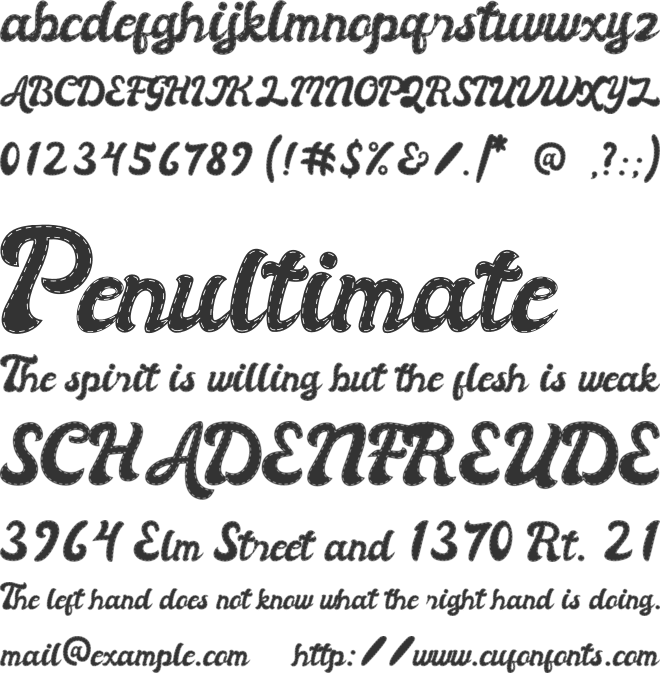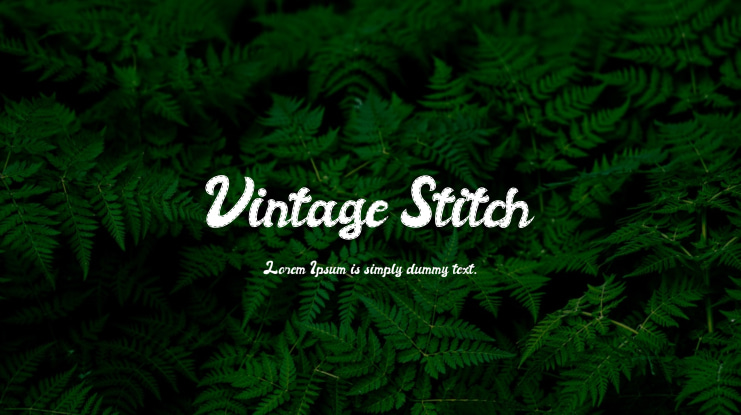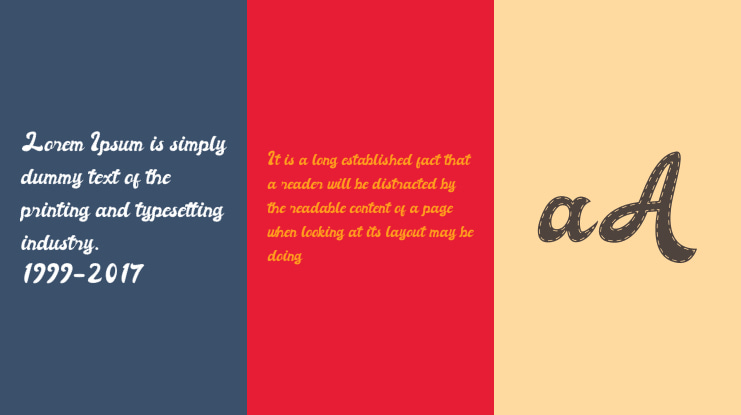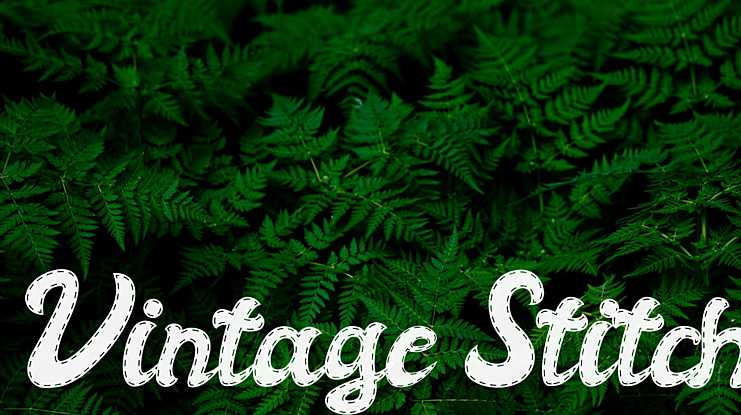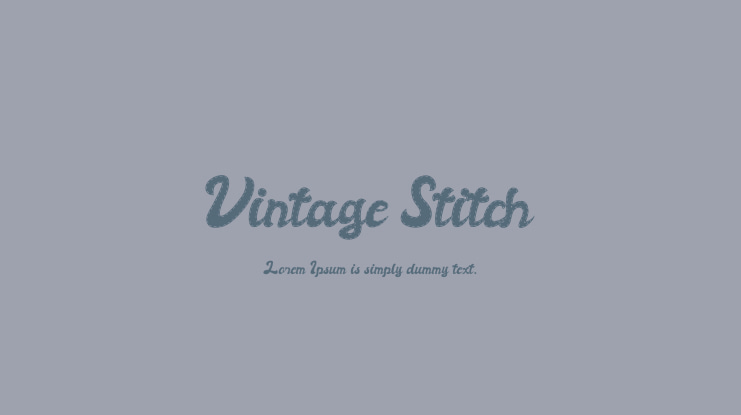
Vintage Stitch Font
Vintage Stitch is an awesome display font with a cool retro vibe. Add a touch of nostalgia to your designs with this versatile typeface! Perfect for logos, branding, invitations, stationery, wedding designs, social media posts, and so much more.